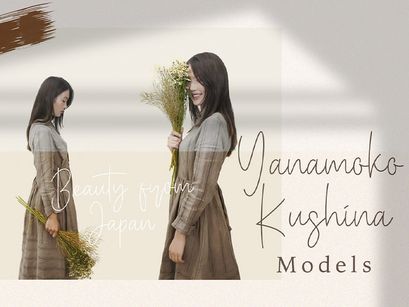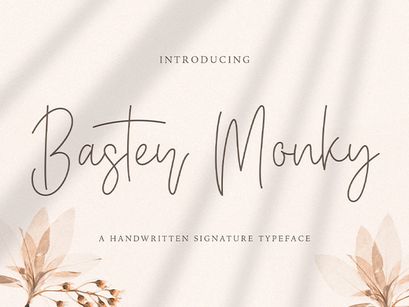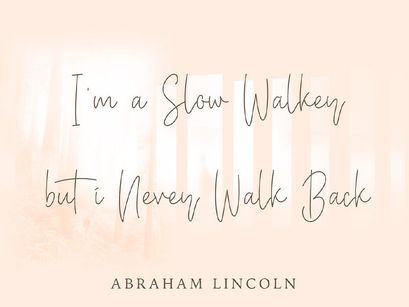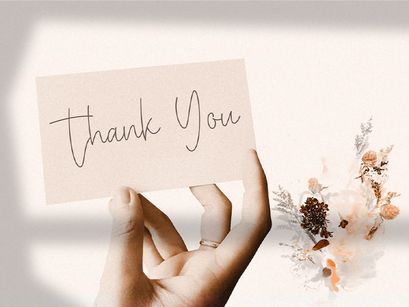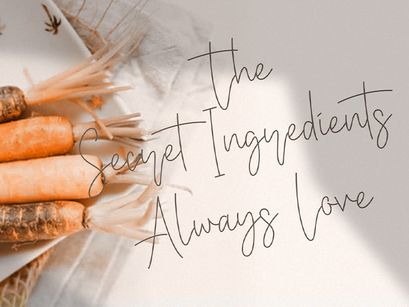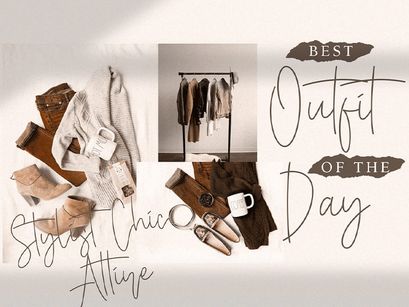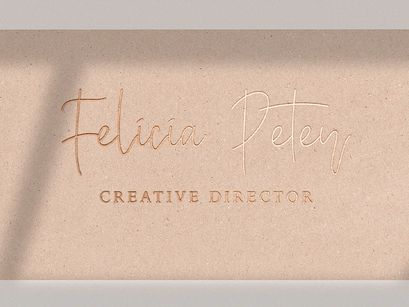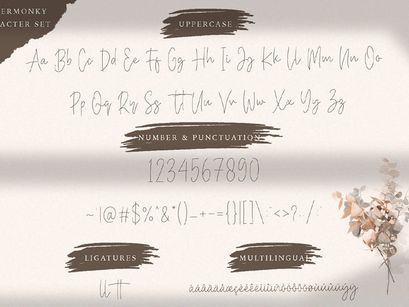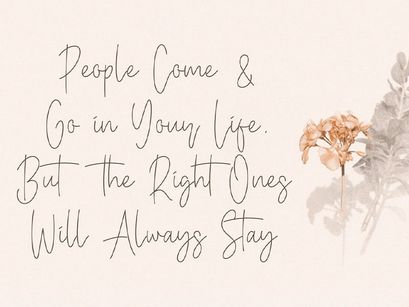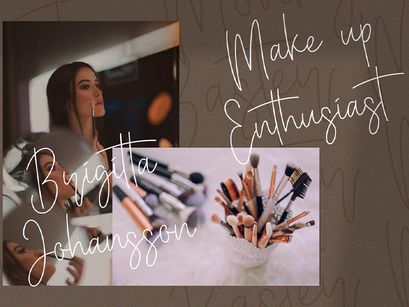
Baster Monky - Monoline Script Font
Introducing Baster Monky - Monoline Script Font
Baster Monky is a Monoline Script Font with elegant style. This font is perfect for fashion brand, apparel, shoes company, wedding invitation, business card, logo brand, clothing, and also business brand name like barber shop or taylor.
This Font Template contains Luxury, Elegant, Creative, and has a Unique Concept.
• Ligatures
• Uppercase and Lowercase letters
• Numbering and Punctuations
• Multilingual Support